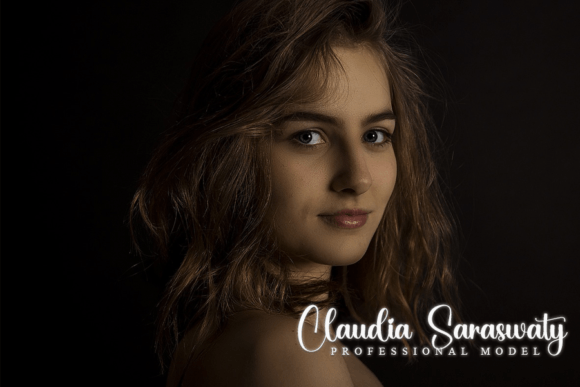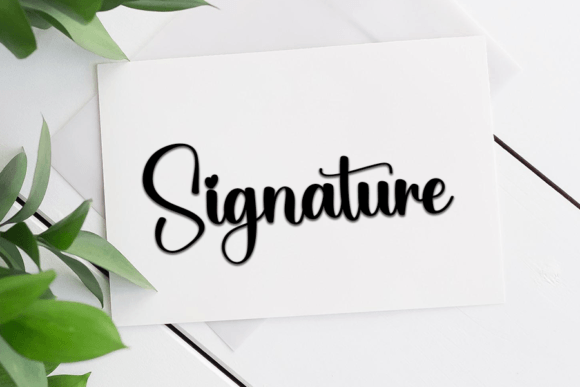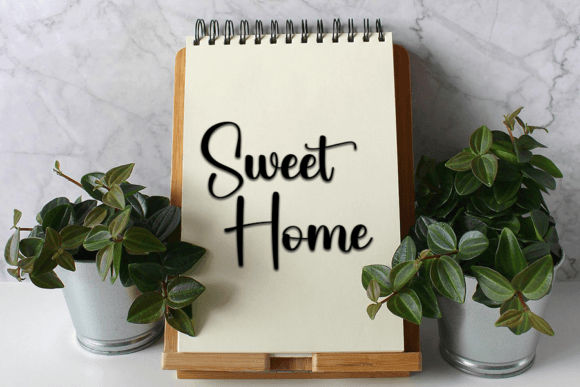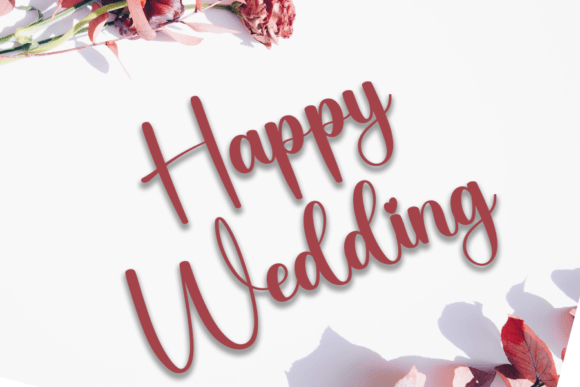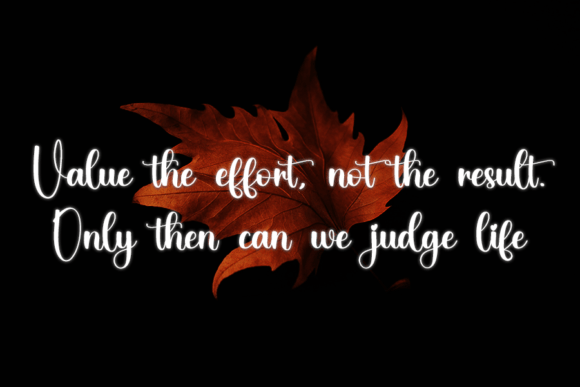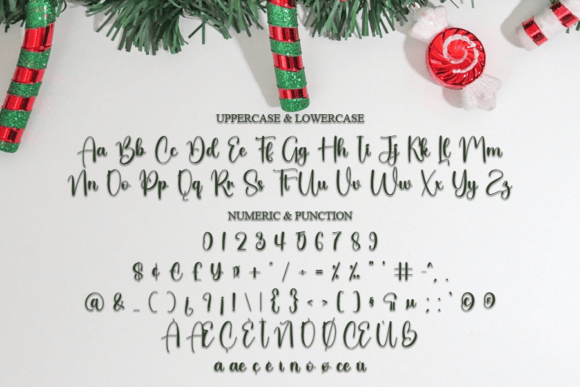
Get Ready to Deck the Halls with a Sweet New Font
It’s that time of the year when creativity flows freely, and our hearts are filled with joy and love. You’re probably sitting by the fireplace, sipping hot cocoa, and brainstorming ideas for your holiday projects. Suddenly, you remember that one special font that always adds a touch of magic to your designs. For many of us, that font is the perfect blend of elegance and whimsy – the Candy Christmas Font.
This charming handwritten script font is designed to bring a smile to your face and a twinkle to your eyes. Whether you’re crafting handmade cards, creating digital designs, or making presentations for the holiday season, Candy Christmas Font is the perfect companion. Its versatility and unique charm make it a valuable asset for designers, allowing them to create one-of-a-kind projects that truly stand out.
Candy Christmas Font Key Features
- Size: 128 glyphs, including uppercase and lowercase letters, numbers, and punctuation marks
- Unique Characteristics: Whimsical and playful design, perfect for creating a festive atmosphere during the holiday season
- Style: Script font with a handwritten feel, ideal for titles, headings, and short phrases
Candy Christmas Font Review
I recently had the chance to work with the Candy Christmas Font, and I have mixed feelings about it. While it’s perfect for creating a festive and playful atmosphere, it also has some limitations that might make it less suitable for other projects.
- The font’s unique and whimsical design makes it perfect for Christmas-related projects, such as holiday cards, invitations, or social media graphics.
- The font’s bold and eye-catching style is sure to grab the viewer’s attention and add a touch of festivity to any design.
- The font is highly customizable, with a range of color options and styles that can be easily applied using most design software.
- The font’s design might be too loud or overwhelming for some projects, especially those that require a more subtle or elegant look.
- The font’s limited character set might make it difficult to use for longer text blocks or formal documents.
- The font’s overall style might be too gimmicky or clichéd for some designers, who prefer a more modern or minimalist aesthetic.
While the Candy Christmas Font is a fun and festive addition to any design project, it’s not without its limitations. It’s perfect for Christmas-themed projects or those that require a playful and whimsical touch, but it might not be the best choice for more formal or elegant designs.
Use the Candy Christmas Font for holiday-themed projects, such as Christmas cards, invitations, and decorations.
Experiment with different font sizes and colors to create a festive atmosphere.
Combine the Candy Christmas Font with other holiday-themed graphics and images for a cohesive look.